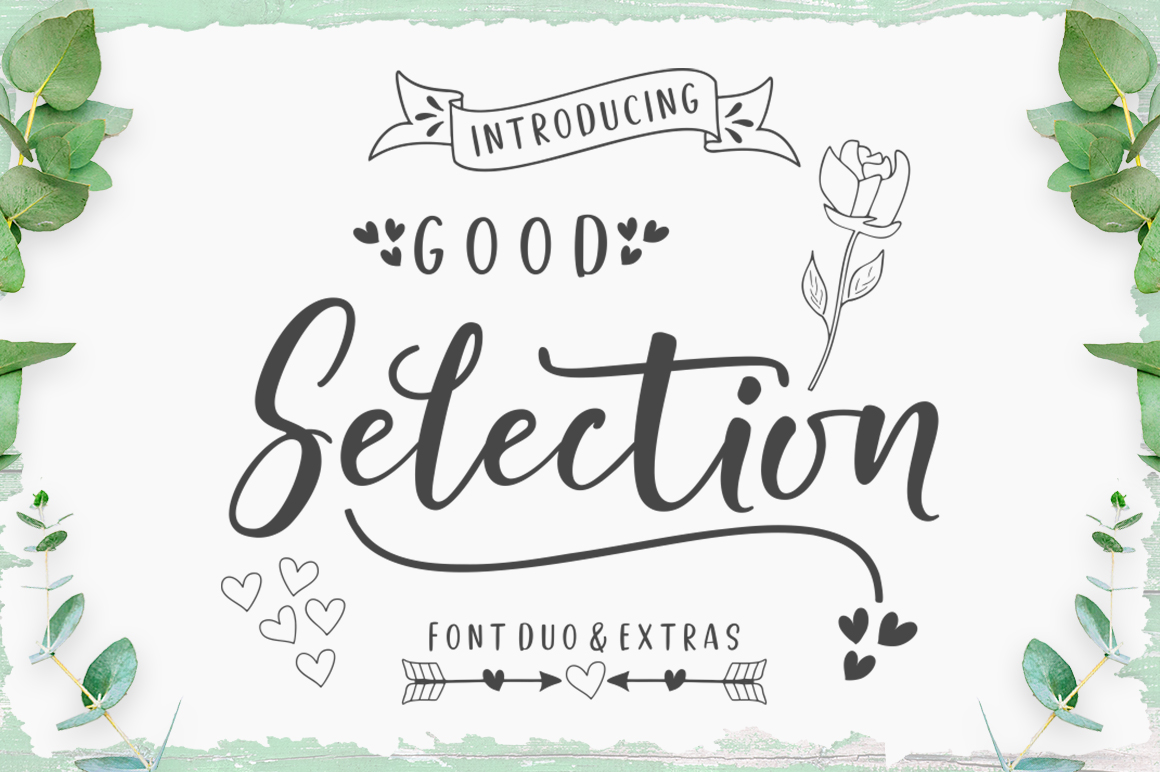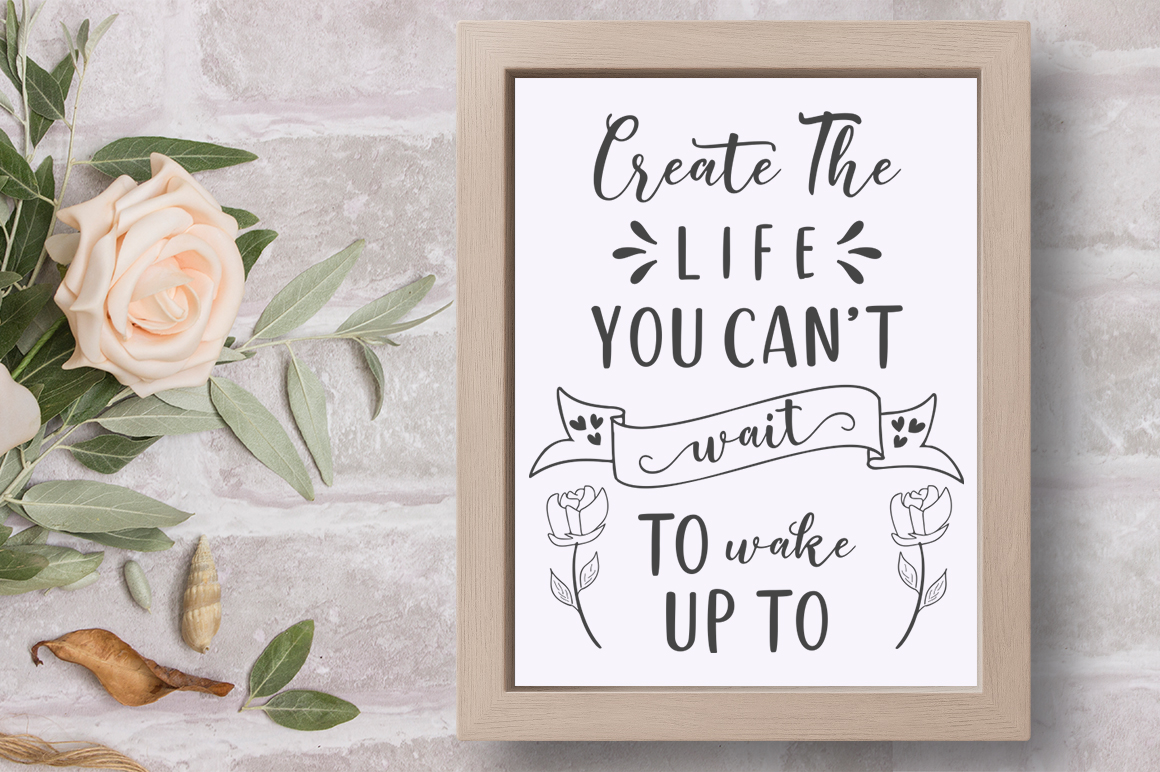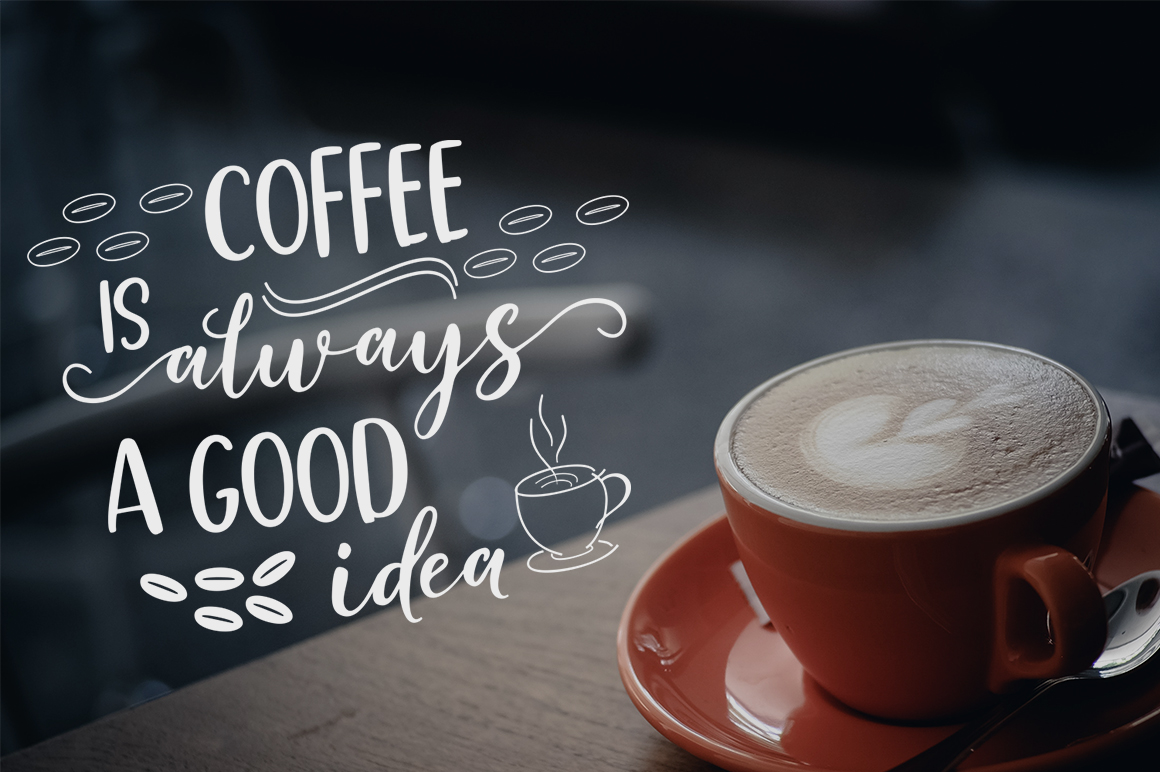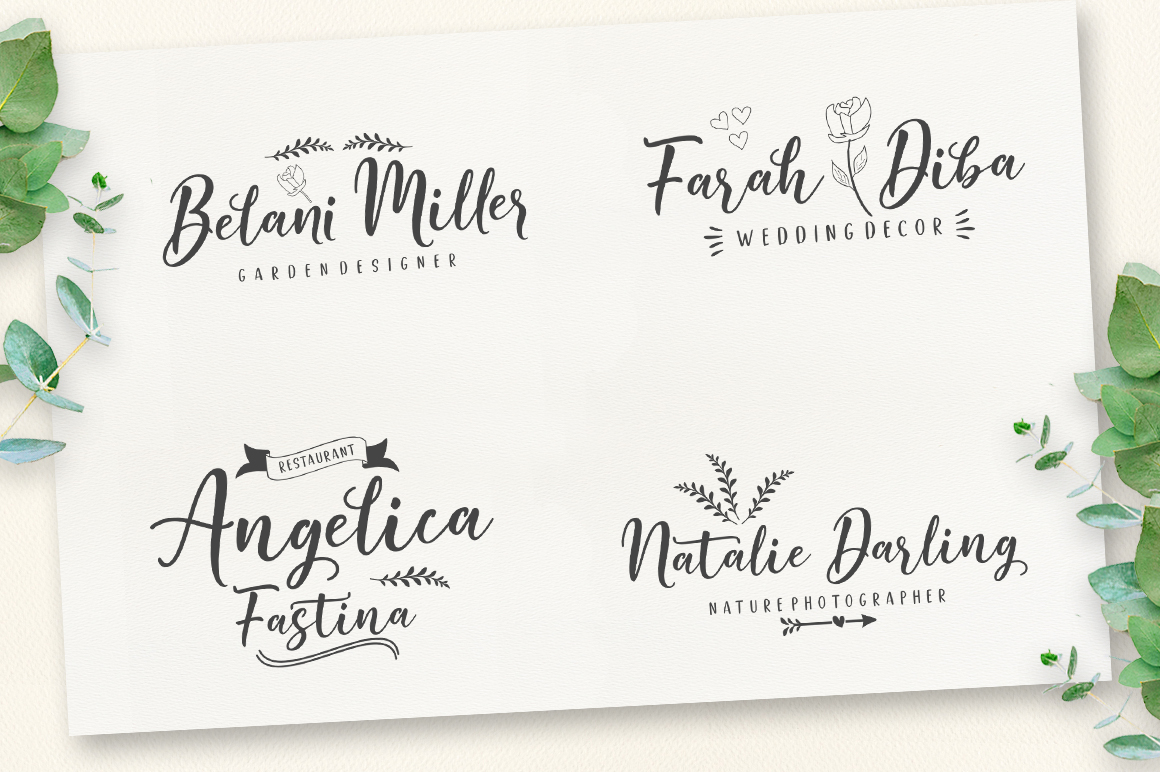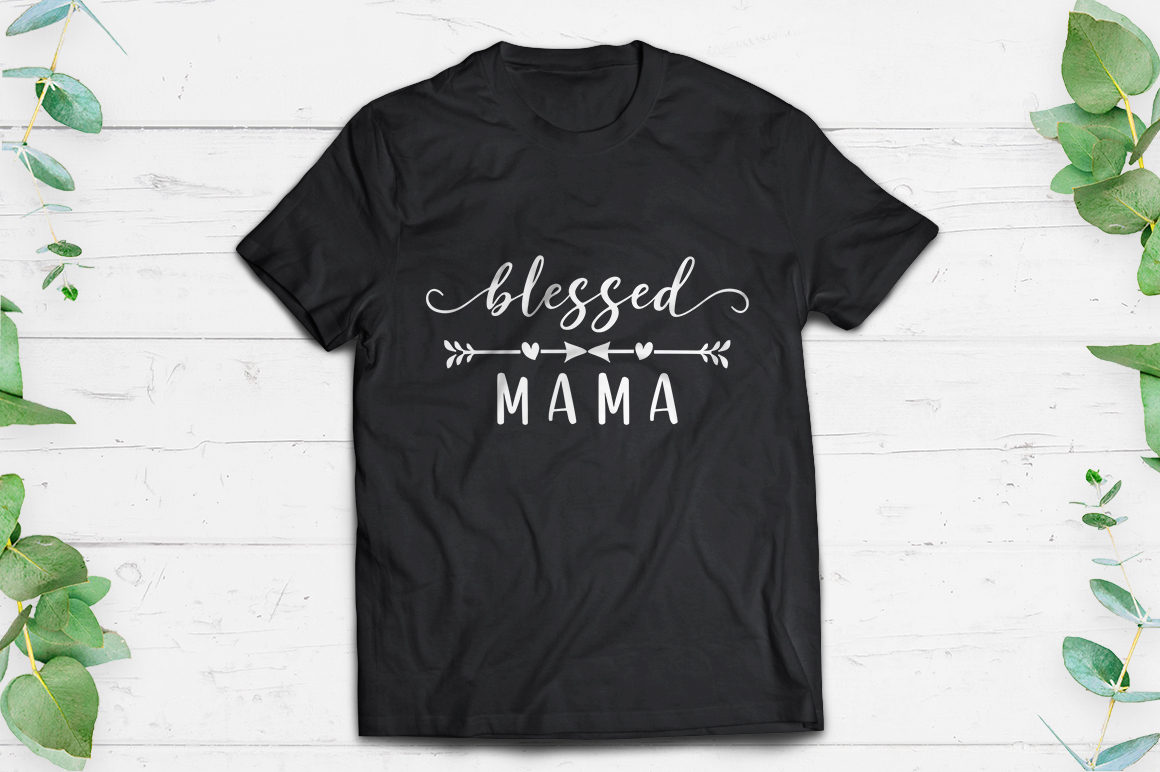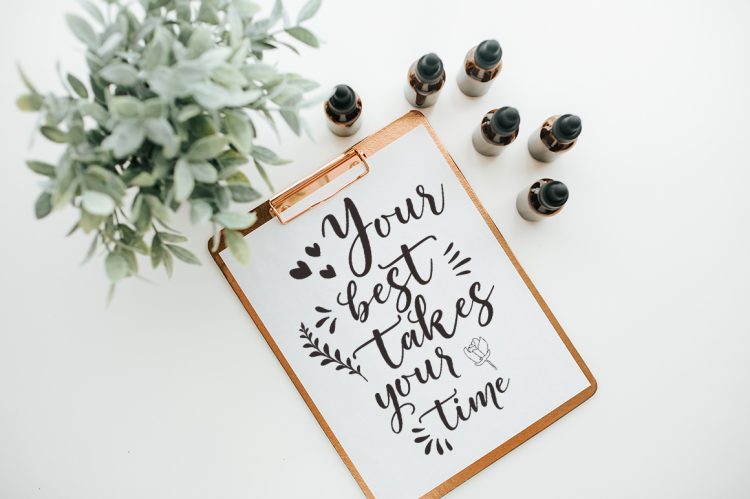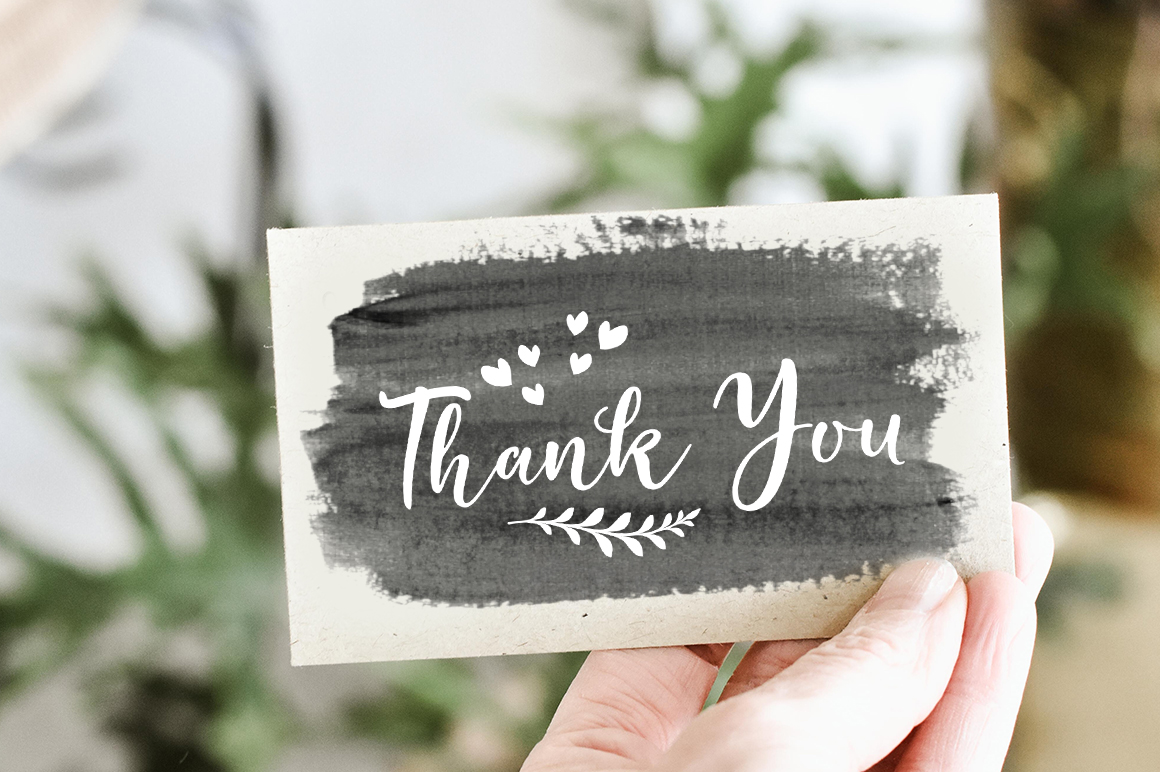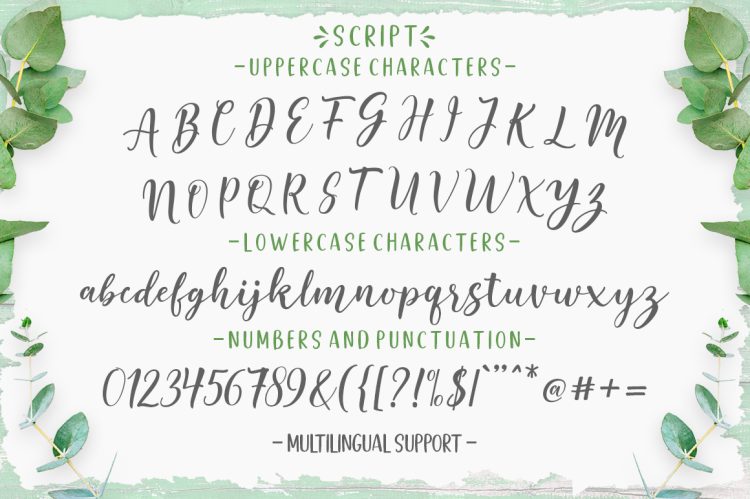
Good Selection Fonts Duo & Extras is a modern scripts with handwriting, decorative characters, and basic dance lines! designed to perfectly combine informal, sassy, romantic, sweet scripts, and hand-drawn design elements allow you to create many beautiful typographic designs in an instant, just in time for branding, logos, web design and editorial, branding, prints , invitations, crafts, quotes, and more.